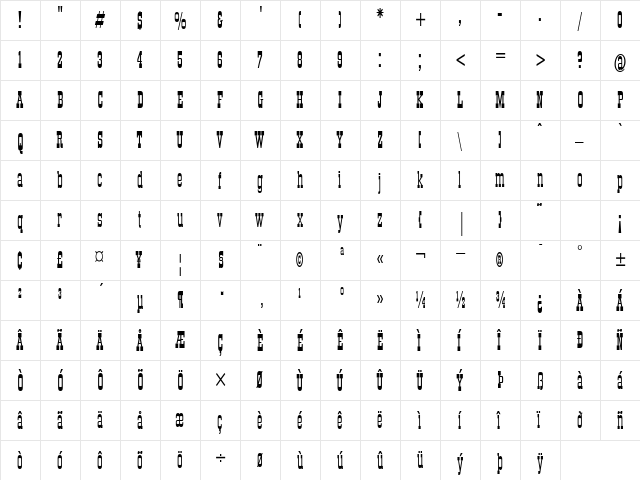
StagecoachCondensed Regular
Design Context for StagecoachCondensed Typeface
StagecoachCondensed takes a measured approach to typography — its balanced proportions and neutral character make it a reliable workhorse for both digital and print work. Its narrow stance lets it pack a punch even in space-constrained designs.
Pro Tip: Use StagecoachCondensed in both headline and body roles to test its range before committing to a single application.